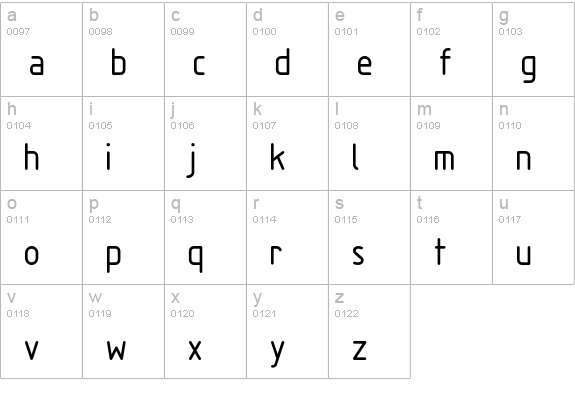
Isonorm3098 is a modern and versatile font that combines clean lines with a unique geometric structure. This font is perfect for any design project that requires a sleek and professional look. Whether you're creating a logo, designing a website, or crafting a brochure, Isonorm3098 will give your work a contemporary edge. With its balanced letterforms and consistent spacing, Isonorm3098 offers excellent legibility in both print and digital mediums. The carefully crafted curves and sharp angles create a visually stunning effect that will captivate your audience. This font truly stands out and leaves a lasting impression. One of the best things about Isonorm3098 is that it is absolutely free. That's right, you can download this amazing font without spending a dime. Thanks to FontsMarket.com, you can easily access Isonorm3098 and enhance your design projects with its modern and stylish aesthetic. Don't miss out on the opportunity to elevate your designs with Isonorm3098. Download this font today from FontsMarket.com and discover the endless possibilities it offers. Whether you're a professional designer or a hobbyist, Isonorm3098 will take your creations to the next level. Embrace its sleek and contemporary design and make a bold statement with your next project.